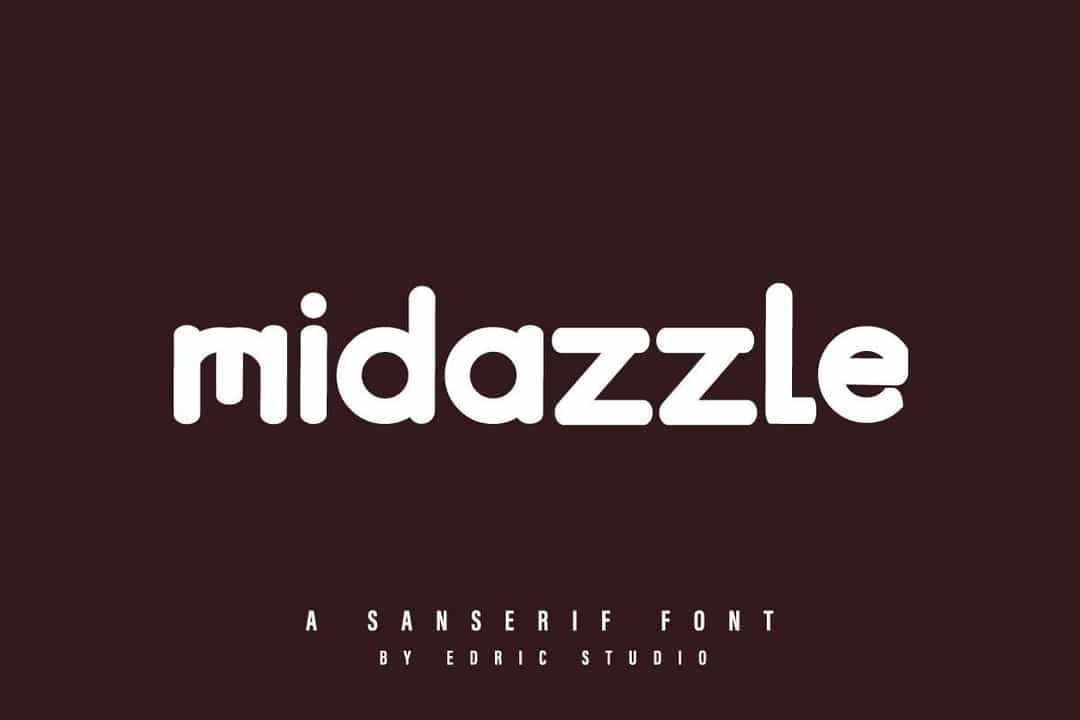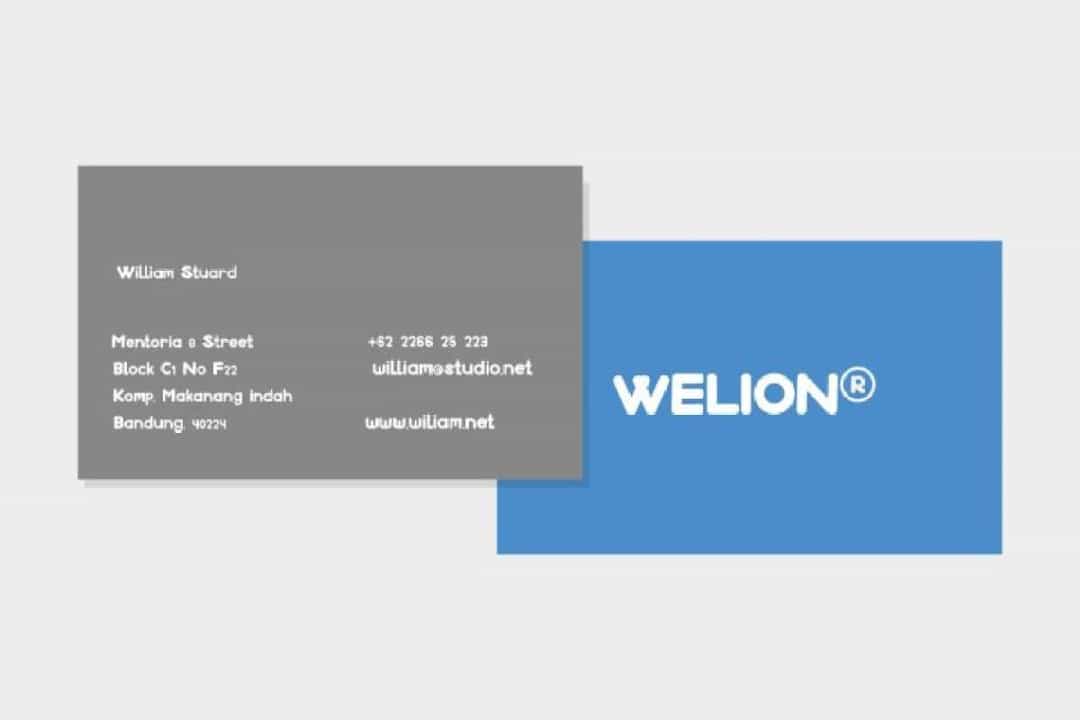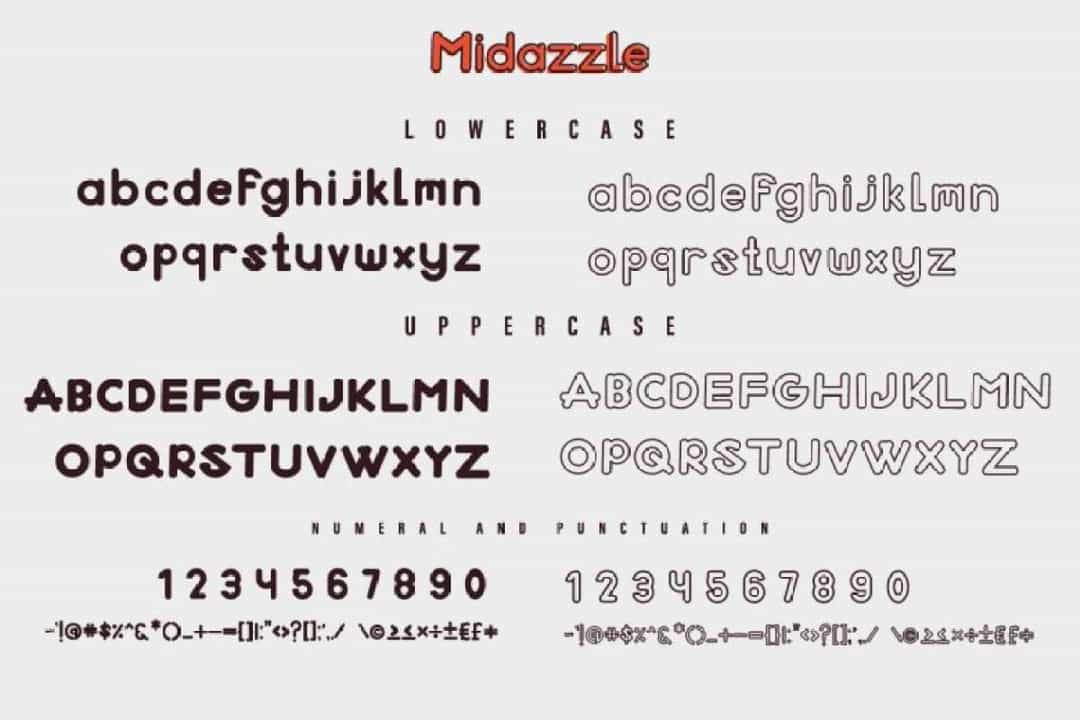
Midazzle is an exquisite sans-serif font with an exquisite contemporary aesthetic. Featuring stunning characters perfectly controlled with kerning and spacing perfectly aligned for ease, its style will bring futuristic modern elegance into any setting.